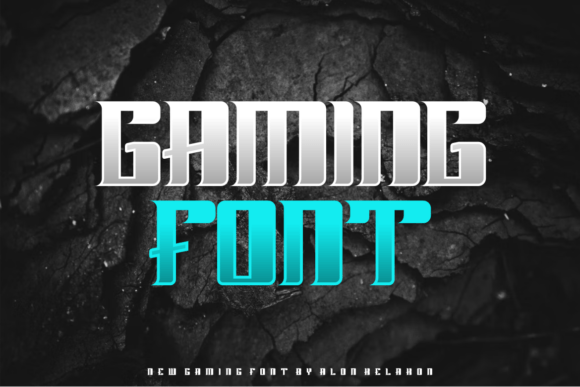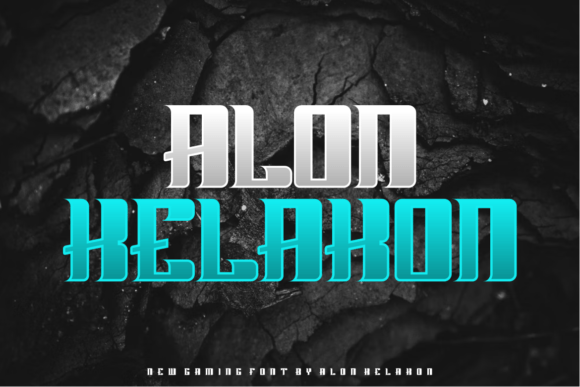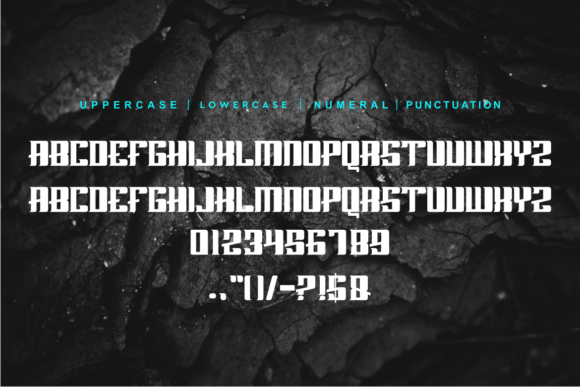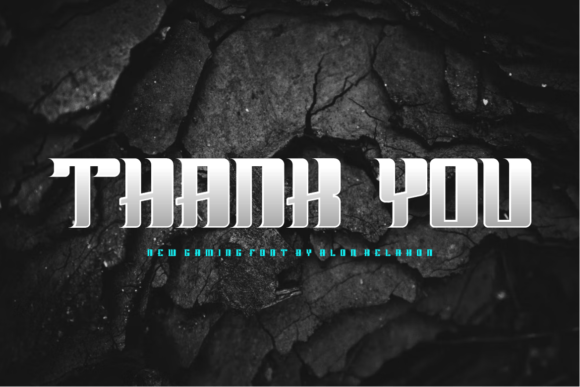
Unleash Your Creativity with Dead Squad Font: A Modern Display Powerhouse
In the realm of typography, fonts play a pivotal role in bringing creative visions to life. Among the myriad of fonts available, one that stands out for its modern appeal and versatility is the Dead Squad Font. Described as a cool and modern display font, Dead Squad has been meticulously designed to capture the hearts of designers and crafters alike, elevating their creative projects to unprecedented heights.
The Essence of Dead Squad Font
Dead Squad Font is not just another addition to the vast sea of typefaces; it’s a masterpiece crafted with precision and passion. Its design embodies a perfect blend of modernity and elegance, making it an ideal choice for those looking to infuse their projects with a fresh and contemporary vibe. Whether you’re working on a branding project, crafting an eye-catching poster, or designing a compelling website, Dead Squad Font promises to be a game-changer.
Why Choose Dead Squad Font?
So, what makes Dead Squad Font a preferred choice among designers and crafters? Here are a few compelling reasons:
- Versatility: Dead Squad Font is incredibly versatile, making it suitable for a wide range of projects. From digital platforms like websites and social media graphics to print materials such as brochures and posters, this font adapts seamlessly.
- Modern Appeal: Its modern design ensures that your projects stand out in a crowded marketplace. The font’s unique characteristics help in creating a distinctive visual identity that captures the audience’s attention.
- Ease of Use: Despite its sophisticated look, Dead Squad Font is remarkably easy to use. Designers can quickly integrate it into their projects without a steep learning curve, making it accessible to both beginners and seasoned professionals.
- Customization: The font offers ample opportunities for customization. Designers can experiment with different sizes, colors, and styles to match their creative vision.
Applications of Dead Squad Font
The applications of Dead Squad Font are vast and varied. Here are some popular uses:
- Branding and Logos: Create memorable brand identities with Dead Squad Font. Its modern appeal and readability make it perfect for logos that need to make a lasting impression.
- Advertising and Marketing Materials: Elevate your advertising and marketing materials with this font. It’s ideal for headlines and titles, adding a touch of sophistication and modernity.
- Web Design: Enhance your website’s aesthetic appeal with Dead Squad Font. It’s perfect for headings, titles, and any textual content that needs to stand out.
- Social Media Graphics: Make your social media posts and stories more engaging with this font. It’s a great way to attract attention and increase engagement.
Tips for Maximizing the Potential of Dead Squad Font
To get the most out of Dead Squad Font, consider the following tips:
- Pair it Wisely: Experiment with font pairings to create visual harmony. Dead Squad Font works well with both serif and sans-serif fonts, offering flexibility in design.
- Play with Sizes: Don’t be afraid to experiment with different font sizes. Contrasting sizes can create visual interest and hierarchy in your designs.
- Utilize Color: Take advantage of the font’s design by using colors that complement your brand or project’s aesthetic. Color can significantly impact the font’s appearance and effectiveness.
Dead Squad Font is a powerful tool in the arsenal of designers and crafters. Its modern design, versatility, and ease of use make it an excellent choice for a wide range of projects. By incorporating Dead Squad Font into your creative workflow, you can elevate your designs, make them more engaging, and ensure they leave a lasting impression on your audience. Whether you’re a professional designer or a DIY enthusiast, Dead Squad Font is sure to become a favorite in your collection.